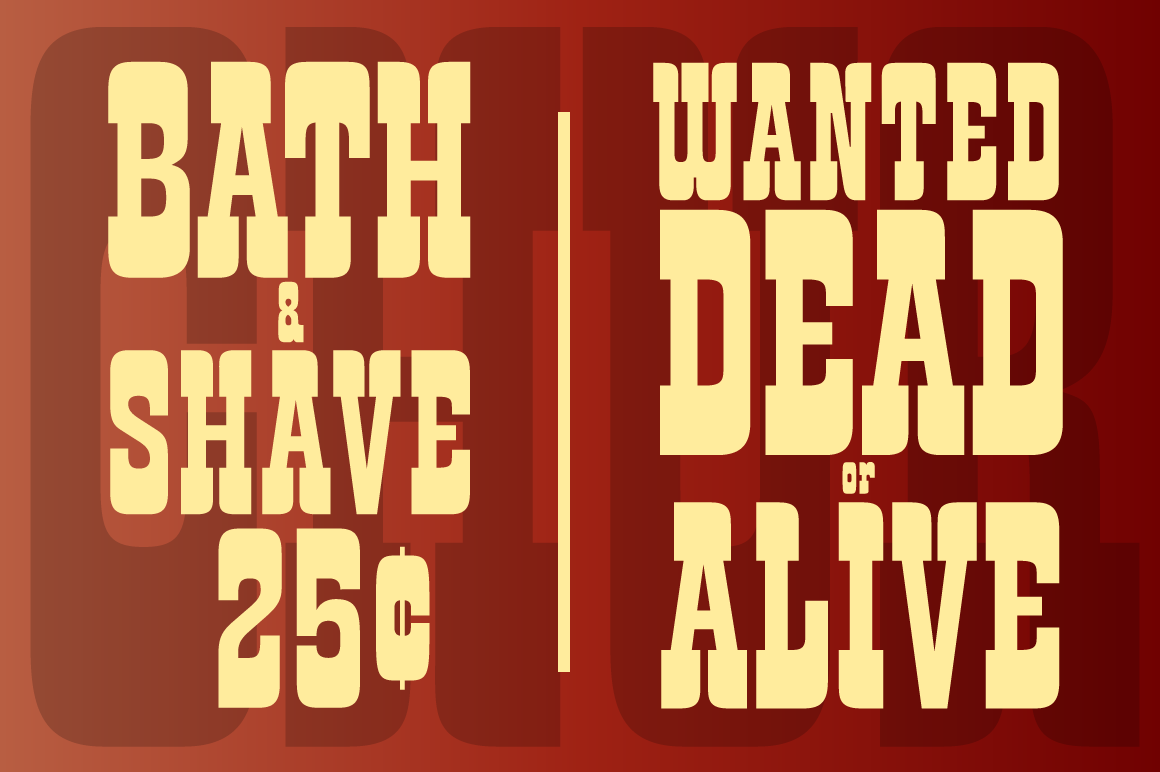
Introducing Churchward Tua Family Font: A Wild West-Inspired Slab Serif Typeface
In the realm of typography, few fonts evoke the rugged, free-spirited essence of the American Wild West as effectively as Churchward Tua. Designed by the late Joseph Churchward, a renowned typeface designer, Tua is a slab serif font that embodies the bold, adventurous spirit of the Old West. With its unique blend of quirky details and rustic charm, Churchward Tua is the perfect choice for designers and crafters looking to add a touch of cowboy swagger to their projects.
The Design Inspiration Behind Churchward Tua
Churchward Tua’s design inspiration is deeply rooted in the aesthetics of the Wild West era. The font’s rugged, no-nonsense appearance is reminiscent of the swinging saloon doors, wanted posters, and weathered signage that dotted the dusty landscapes of the American frontier. Churchward’s masterful hand is evident in the font’s distinctive features, which include chunky serifs, bold strokes, and a healthy dose of character.
One of the defining characteristics of Churchward Tua is its Old West, cattle drive sort of look. The font’s rugged, imposing presence makes it an ideal choice for headlines, posters, and other applications where a bold, attention-grabbing style is desired. Whether you’re designing a logo for a Wild West-themed restaurant, creating a wanted poster for a craft project, or simply looking to add a touch of cowboy flair to your design work, Churchward Tua is the perfect font for the job.
Key Features of Churchward Tua Family Font
Churchward Tua comes in two styles: Regular and Italic. This versatile font family offers a range of creative possibilities, from bold, declarative headlines to more refined, cursive text. The Regular style is perfect for applications where a strong, assertive presence is desired, while the Italic style adds a touch of elegance and sophistication.
Some of the key features of Churchward Tua include:
- Slab serif design: Churchward Tua’s chunky serifs give the font its distinctive, rugged appearance.
- Old West-inspired aesthetic: The font’s design is deeply rooted in the aesthetics of the Wild West era.
- Quirky details: Churchward’s trademark quirky details add a touch of character to the font.
- Two styles: Churchward Tua comes in Regular and Italic styles, offering a range of creative possibilities.
Using Churchward Tua in Your Design Projects
Churchward Tua is a versatile font that can be used in a wide range of design projects, from print materials to digital applications. Here are a few ideas to get you started:
- Headlines and titles: Churchward Tua’s bold, attention-grabbing style makes it perfect for headlines and titles.
- Posters and flyers: The font’s rugged, eye-catching appearance is well-suited to posters and flyers.
- Logos and branding: Churchward Tua’s unique blend of quirky details and rustic charm makes it an excellent choice for logos and branding.
- Craft projects: The font’s Wild West-inspired aesthetic makes it perfect for craft projects, such as handmade cards, invitations, and signs.
Tips for Working with Churchward Tua
Here are a few tips for working with Churchward Tua:
- Use it boldly: Churchward Tua is a bold, attention-grabbing font – don’t be afraid to use it in large sizes.
- Experiment with colors: The font’s rugged, distressed appearance looks great in a range of colors, from earthy tones to bold brights.
- Pair it with contrasting fonts: Churchward Tua’s bold style can be paired with more refined, elegant fonts for a striking contrast.
In conclusion, Churchward Tua Family Font is a unique and versatile typeface that is sure to add a touch of Wild West flair to any design project. With its rugged, eye-catching appearance and quirky details, Tua is the perfect choice for designers and crafters looking to evoke the spirit of the American frontier.